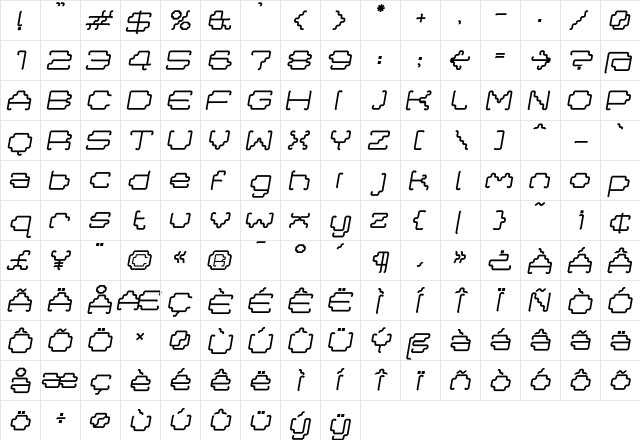
Masta Italic
Design Context for Masta Typeface
Masta is a composed and adaptable typeface that performs quietly and consistently across a wide range of design contexts. Its italic angle brings a sense of urgency and motion to the letterforms.
Pro Tip: Try Masta for annotation and caption copy alongside an upright companion — the contrast in angle creates a dynamic but ordered typographic system.